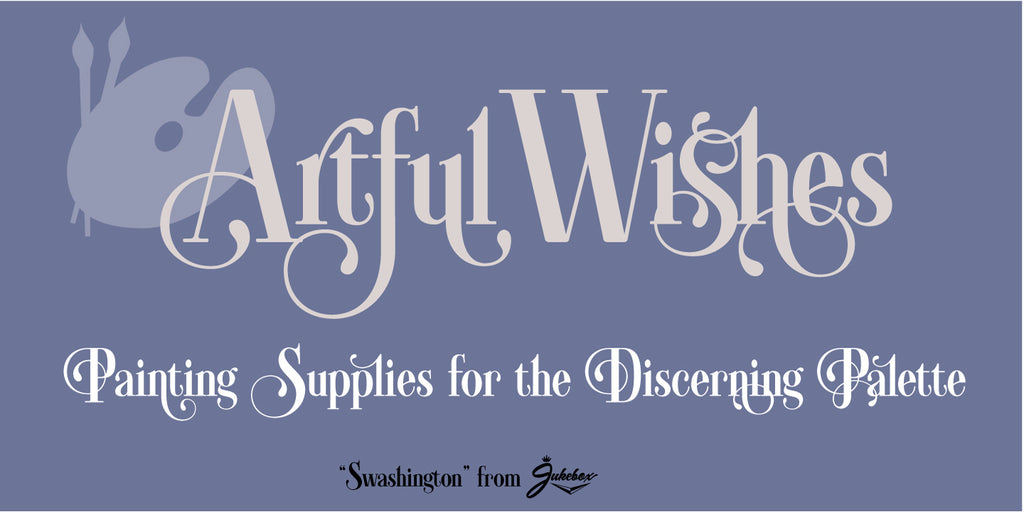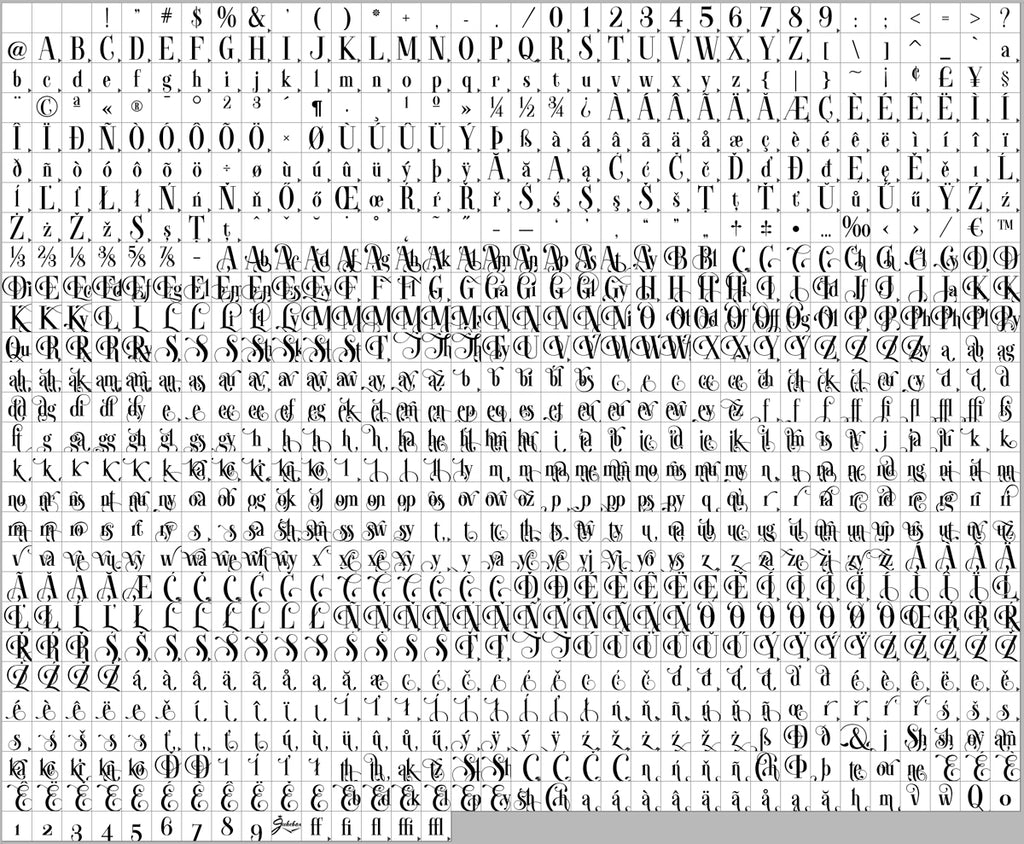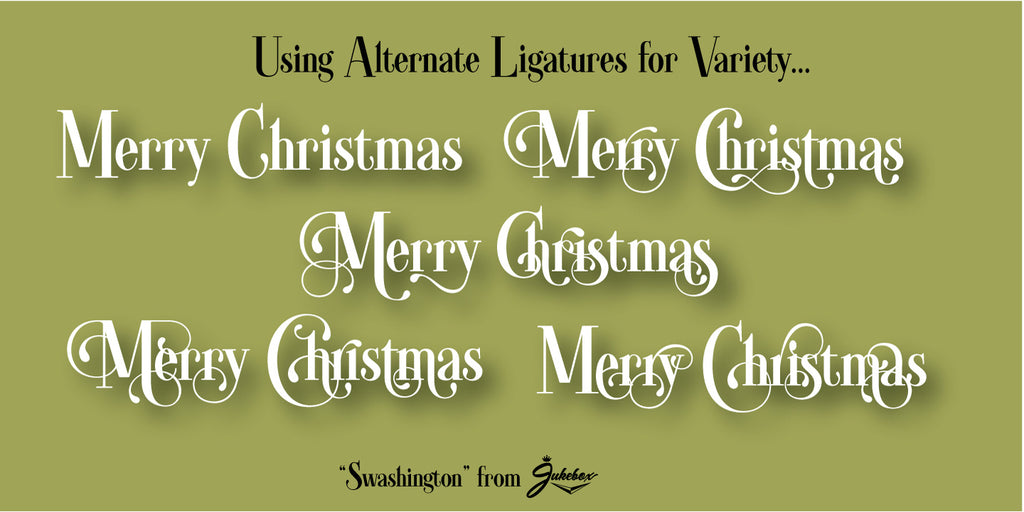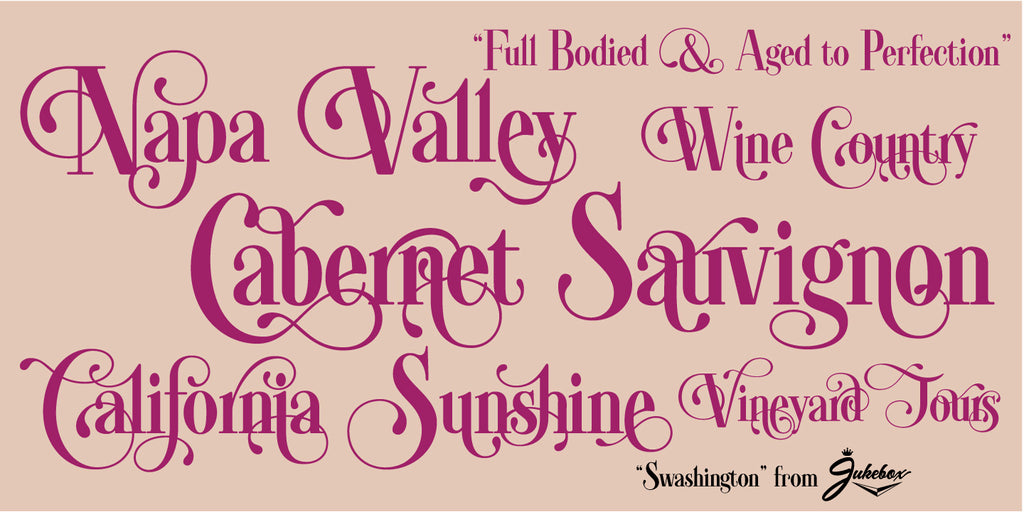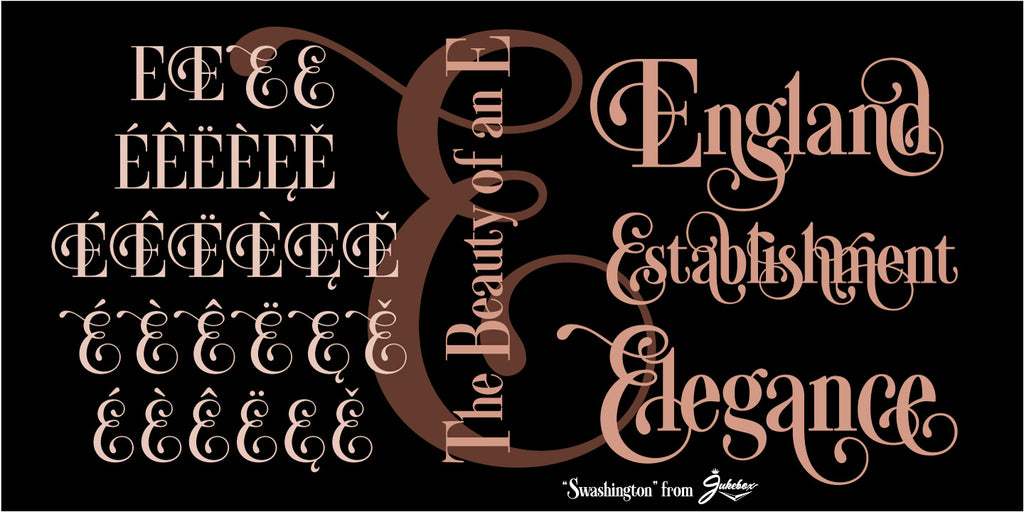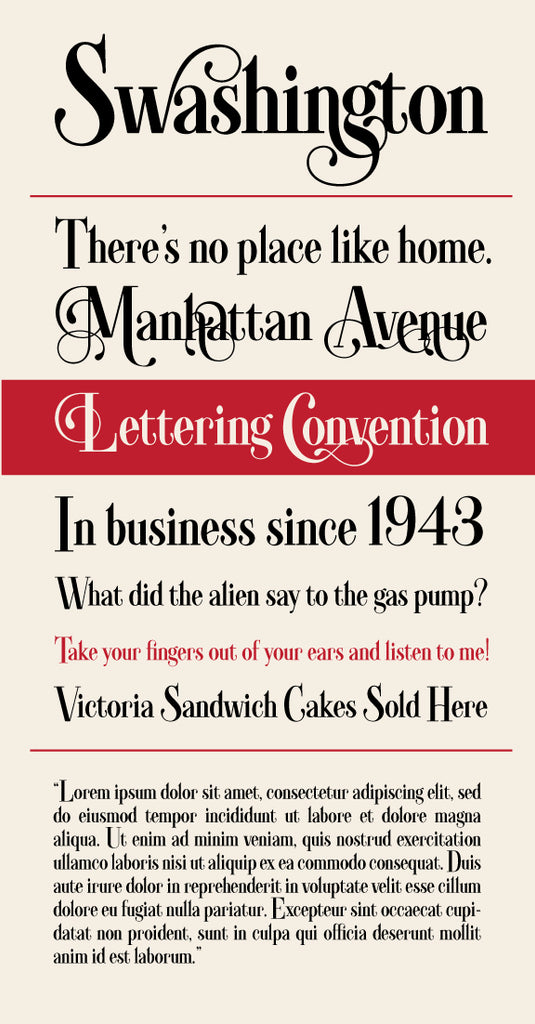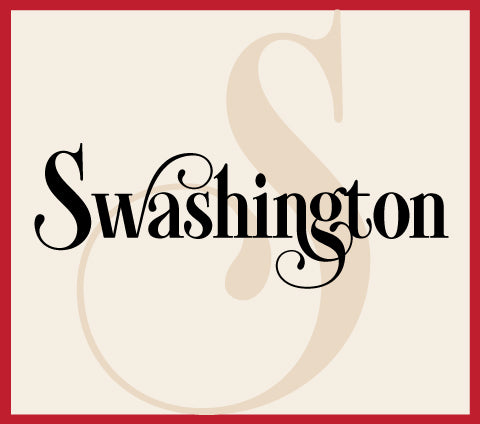
Swashington JF
Swashington is a Jukebox original inspired by a few letters in a hand-drawn logotype. Originally part of my CounterPoint font library, Swashington is a serif font with an Art Noveau feel, yet is also evocative of the swash fonts of the 1970s. The real meat of this typeface comes with using all the swash and ligature variants allowing for an enormous amount of typographic flair. Starting with the original logo, I was moved to develop these interesting letterforms into a full typeface with all the swashy might I could muster. In addition to a comprehensive set of Swash and Alternate letters, there are also over 270 Discretionary Ligatures that can be used to create different combinations by mixing and matching. Included with the downloaded fonts are two .pdf files showing the swashes and ligatures that can be printed and used for easy reference. All of the alternates are available via the Glyph Palette or with OpenType features.